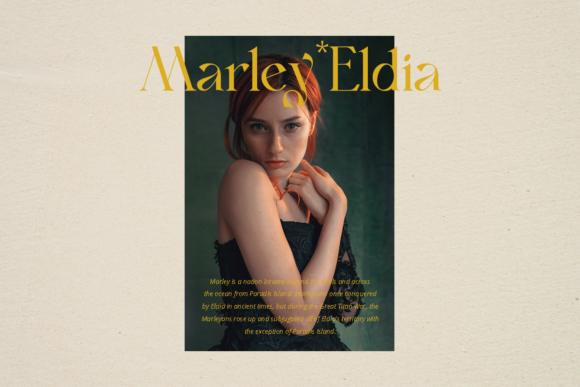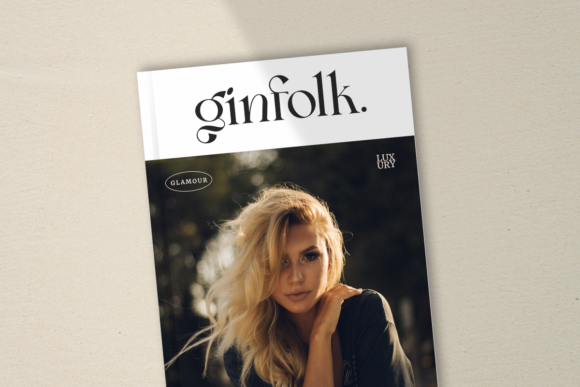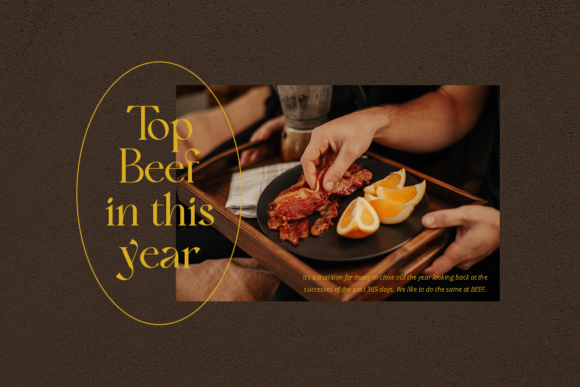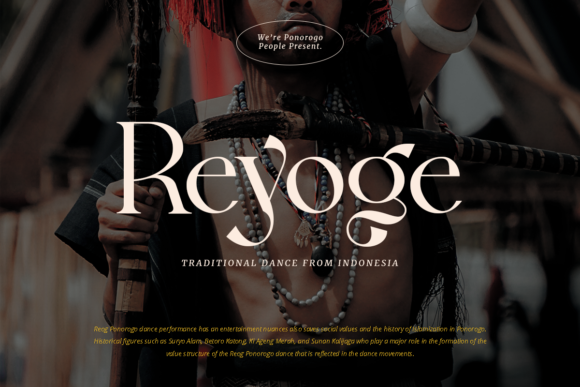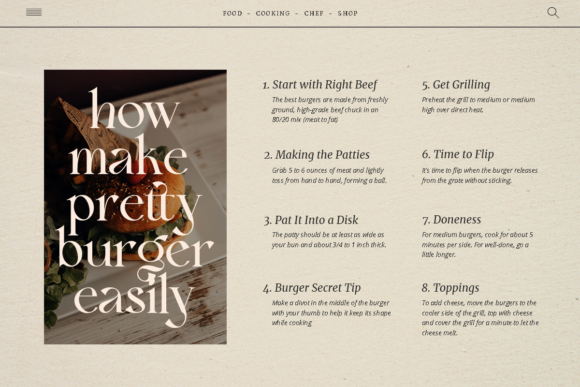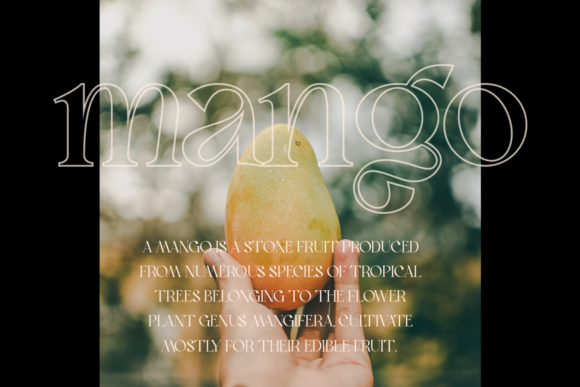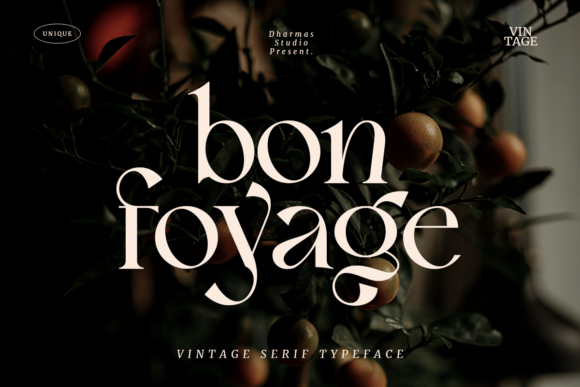
Introducing Bon Foyage Font: Elevate Your Designs with a Unique Serif Style
Are you tired of using the same old fonts in your designs? Do you want to add a touch of elegance and sophistication to your projects? Look no further than the Bon Foyage font, a stunning serif font that is sure to take your designs to the next level. In this article, we’ll explore the features and benefits of Bon Foyage, and show you how to make the most of this incredible font.
What is Bon Foyage Font?
Bon Foyage is a unique serif font that is designed to help you create realistic and spectacular designs. With its classic and elegant style, this font is perfect for a wide range of projects, from crafting and digital art to branding and advertising. Whether you’re a professional designer or a hobbyist, Bon Foyage is sure to inspire your creativity and help you achieve your design goals.
Key Features of Bon Foyage Font
So what sets Bon Foyage apart from other fonts? Here are just a few of the key features that make this font so special:
- Unique Serif Style: Bon Foyage has a distinctive serif style that adds a touch of elegance and sophistication to any design.
- PUA Encoded: This font is PUA (Private Use Area) encoded, which means that you can access all of the glyphs and swashes with ease.
- Easy to Use: Bon Foyage is designed to be easy to use, even for those with limited design experience.
- Highly Versatile: This font can be used for a wide range of projects, from digital art to branding and advertising.
Benefits of Using Bon Foyage Font
So why should you choose Bon Foyage for your next design project? Here are just a few of the benefits of using this amazing font:
- Stand Out from the Crowd: With its unique serif style, Bon Foyage is sure to help your designs stand out from the crowd.
- Professional Results: This font is designed to help you achieve professional results, even if you’re new to design.
- Easy to Customize: Bon Foyage is highly customizable, making it easy to tailor your designs to your specific needs.
- Time-Saving: With its PUA encoding and easy-to-use design, Bon Foyage can save you time and effort in your design projects.
How to Use Bon Foyage Font
Using Bon Foyage is easy, even if you’re new to design. Here are a few tips to get you started:
- Choose Your Project: Decide what project you want to use Bon Foyage for, whether it’s a digital art piece, a branding project, or something else.
- Select Bon Foyage: Select Bon Foyage as your font, and start experimenting with different glyphs and swashes.
Tips and Tricks for Getting the Most out of Bon Foyage
Here are a few tips and tricks to help you get the most out of Bon Foyage:
- Experiment with Different Sizes: Try out different font sizes to see how Bon Foyage looks in different contexts.
- Play with Glyphs and Swashes: Use the PUA encoding to access all of the glyphs and swashes, and experiment with different combinations.
- Pair with Other Fonts: Try pairing Bon Foyage with other fonts to create interesting and unique design effects.